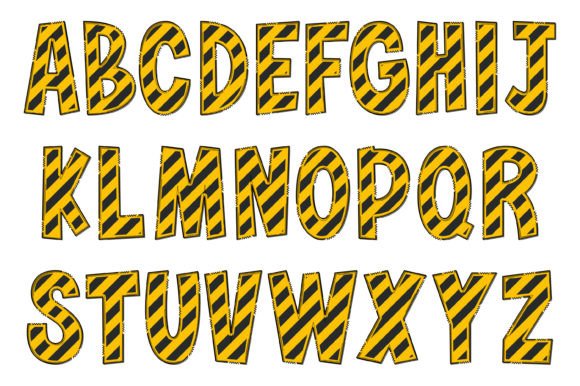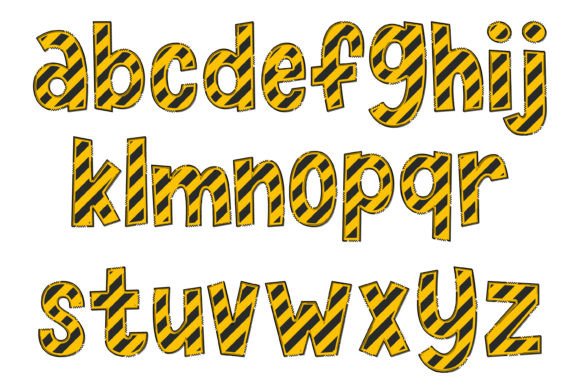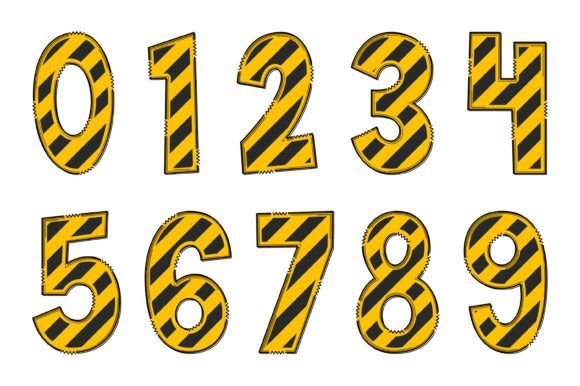
Construction Line Font: Adding a Touch of Whimsy to Your Designs
Are you looking for a font that can add a playful and artistic feel to your designs? Look no further than the Construction Line Font. This delightful font is perfect for designers and crafters who want to create engaging and visually appealing projects, such as children’s books, posters, invitations, greeting cards, and more.
The Versatility of Construction Line Font
Construction Line Font is a versatile typeface that can be used in a variety of design projects. Its playful and artistic feel makes it an excellent choice for designs that require a touch of whimsy. Whether you’re creating a children’s book, a poster, or an invitation, this font is sure to add a dash of personality to your project.
Characteristics of Construction Line Font
Using Construction Line Font in Design Projects
Construction Line Font is particularly well-suited for designs that require a playful and artistic feel. Here are a few examples of how you can use this font in your design projects:
• Children’s Books: Children’s books often utilize fonts that are whimsical, colorful, and easy to read. Construction Line Font is perfect for creating an engaging reading experience for young audiences.
• Posters: Add a touch of personality to your posters with Construction Line Font. This font is perfect for creating eye-catching posters that require a playful and artistic feel.
• Invitations: Make your invitations stand out with Construction Line Font. This font is perfect for creating unique and visually appealing invitations for parties, events, and more.
• Greeting Cards: Add a touch of whimsy to your greeting cards with Construction Line Font. This font is perfect for creating one-of-a-kind greeting cards for special occasions.
Tips for Using Construction Line Font
Here are a few tips for using Construction Line Font in your design projects:
• Experiment with Colors: As a color font, Construction Line Font offers a range of color options. Experiment with different colors to find the perfect combination for your design.
• Play with Size: Construction Line Font can be used at a range of sizes. Experiment with different font sizes to find the perfect fit for your design.
• Combine with Other Fonts: Construction Line Font can be paired with other fonts to create a unique and visually appealing design. Experiment with different font combinations to find the perfect fit for your project.
Construction Line Font is a versatile and playful typeface that’s perfect for designers and crafters who want to add a touch of whimsy to their designs. With its compatibility with a range of design software and its range of color options, this font is sure to become a favorite in your design arsenal. Whether you’re creating a children’s book, poster, invitation, or greeting card, Construction Line Font is the perfect choice for adding a playful and artistic feel to your designs.